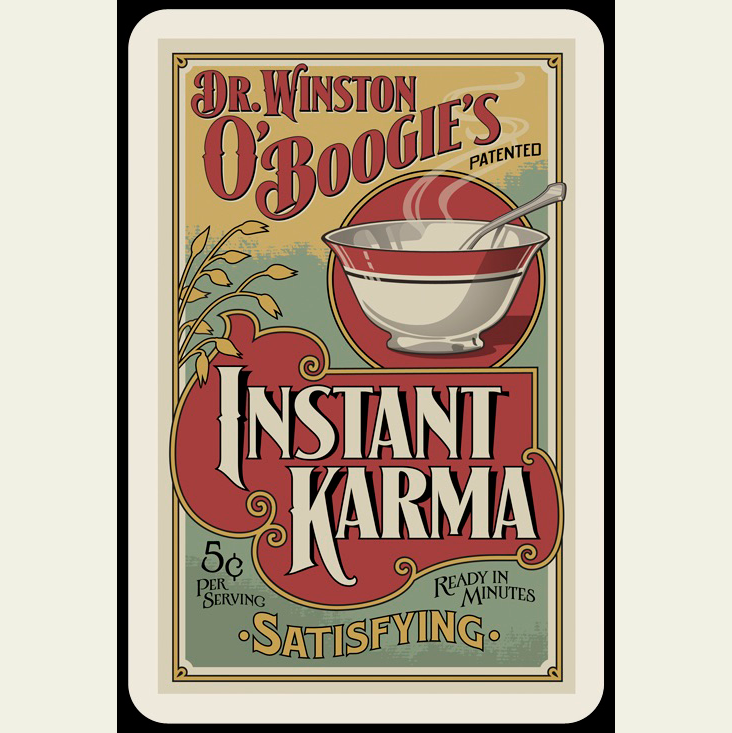
![]() 2016 Design Competition Winner: 3rd Place Artist: Mack Fraga Client: Genus and Circa Mack's card design has all the elements that we look for in a good design, namely strong layout, smart use of color, and appropriate use of fonts. True to the period, the colors are flat and muted with no distracting fades or bevel effects. Bending the text and the use of a slanted drop shadow are also two techniques that were common to the period. Mack's third place design wins him another free LHF font. Great work Mack! Read our interview with Mack. Fonts used: LHF Signmaker 2™, LHF Ross Antique Roman™ and LHF Hensler 1 |